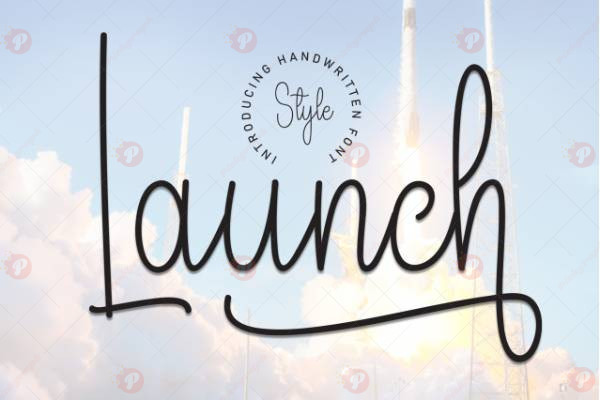
The Launch Handwritten Font Free is a modern and casual handwritten script font designed to give your projects a personal, creative, and approachable look. With its smooth strokes, natural flow, and stylish curves, this typeface is ideal for logos, invitations, social media graphics, posters, packaging, and lifestyle branding.
Whether you’re working on startup branding, product packaging, wedding invitations, or creative blog graphics, the Launch Handwritten Font Free brings a friendly and trendy handwritten vibe that feels both authentic and professional.
Typeface: Script / Handwritten
Style: Modern / Casual / Stylish / Authentic
Perfect for: Branding, Invitations, Logos, Packaging, Posters, Social Media, Blogs